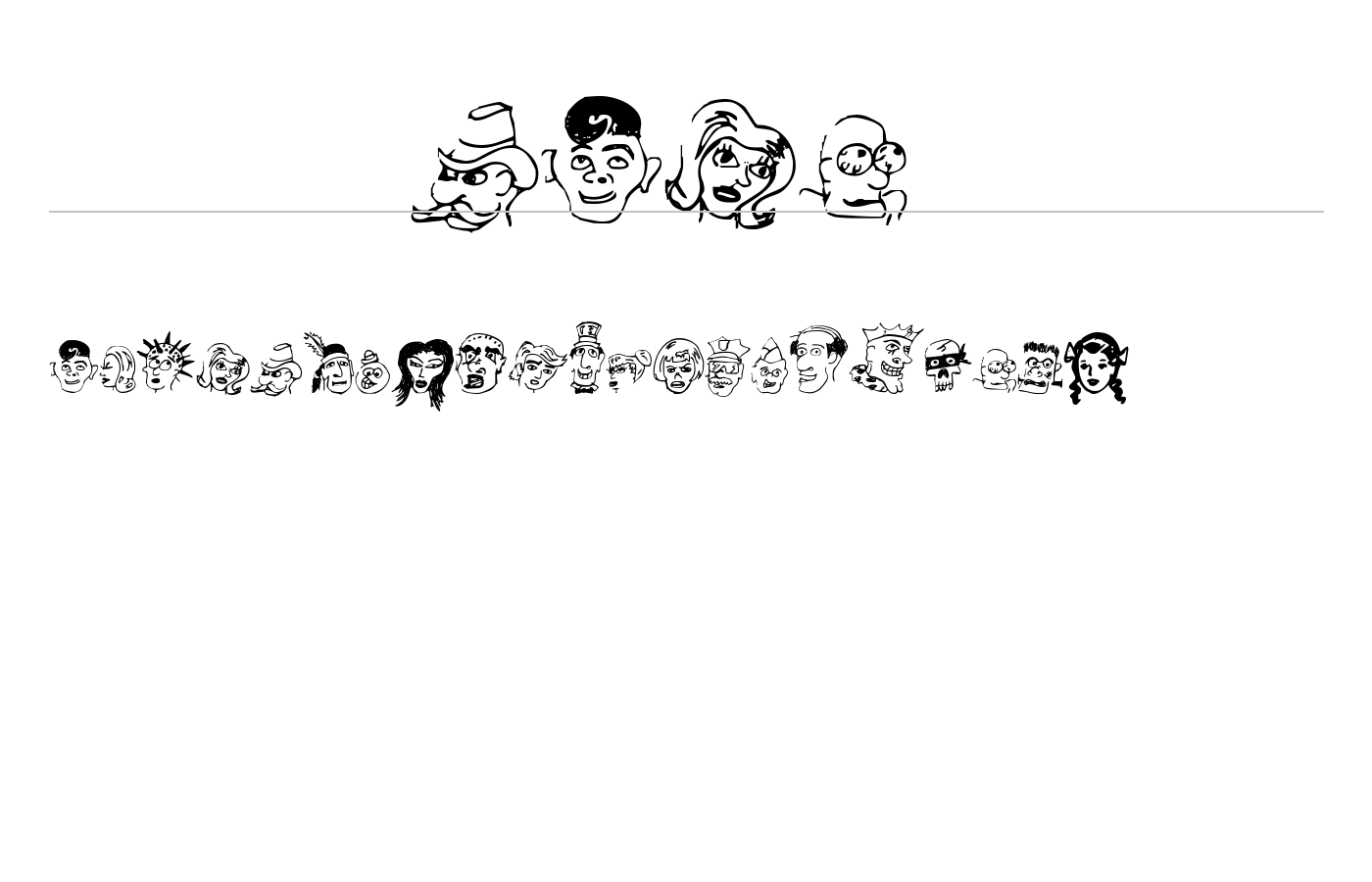
21 Heads Font is a unique, playful dingbat typeface featuring 21 distinct, hand-drawn cartoon faces with varied expressions and styles. Its whimsical and creative character makes it perfect for informal designs, fun branding projects, or adding a quirky touch to posters and invitations where a lighthearted and artistic vibe is desired.
21 Heads Font
About 21 Heads Font